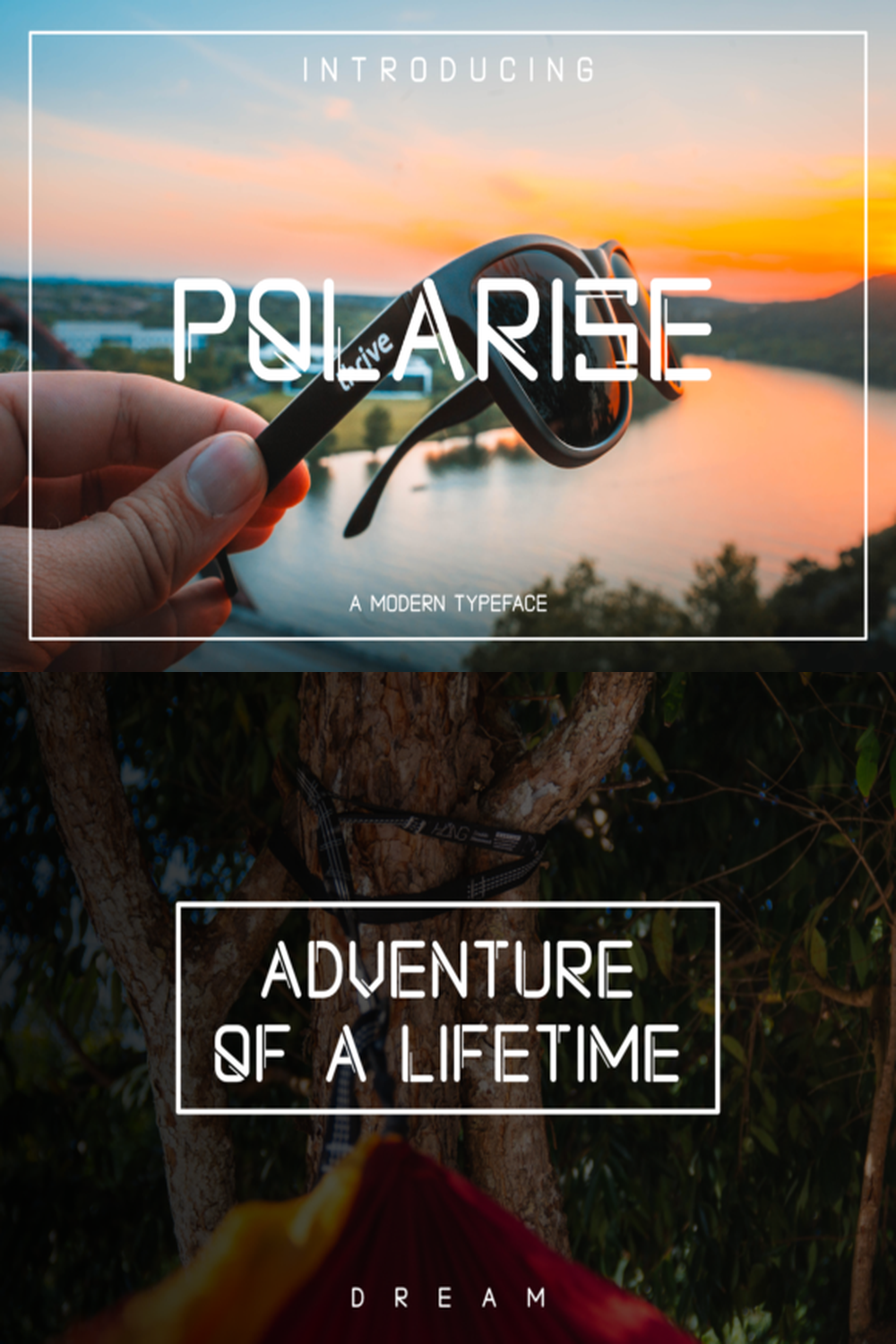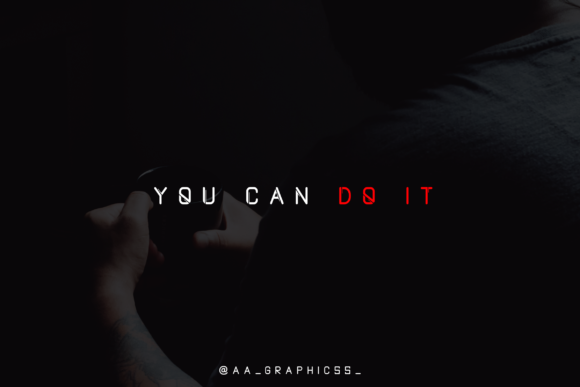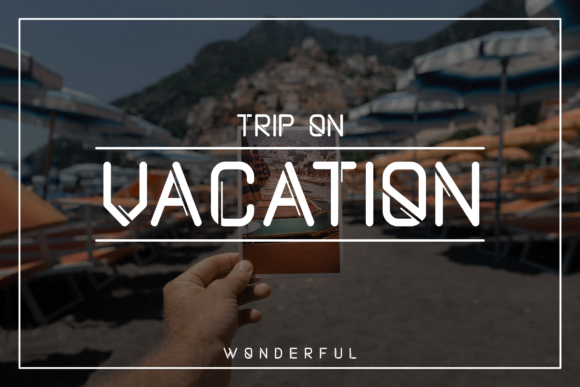
Polarise Font: A Cool Modern Display Font for Logo Design & Headlines
About the Polarise Font
Experience the unique personality of Polarise Font, a font designed for impact. Polarise is a cool and robotic display font. Whatever the topic, this font will be a wonderful asset to your font library, as it has the potential to enhance any creation.
Polarise excels as a display font for headlines, posters, and branding elements where a strong, technological aesthetic is desired. Its robotic quality makes it ideal for projects related to science fiction, technology, or futuristic concepts. Avoid using it for body text or long paragraphs; its bold forms are not optimized for readability in smaller sizes.
Consider pairing Polarise with a clean sans-serif like Open Sans for a balanced contrast, or a geometric sans-serif such as Futura for a more unified, modern feel. For a touch of unexpected elegance, a thin serif like Garamond could also work well, providing a sophisticated counterpoint to Polarise’s robotic edge.
Polarise projects a bold, assertive, and undeniably modern personality. Its strong forms and sharp angles create a sense of futuristic energy and high-tech sophistication, making it perfect for brands aiming for a cutting-edge image.
Polarise Font Usage Examples
Polarise Font Example